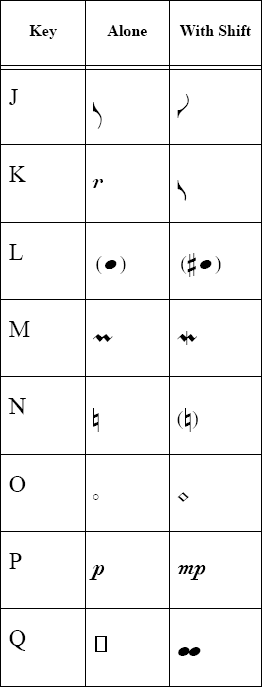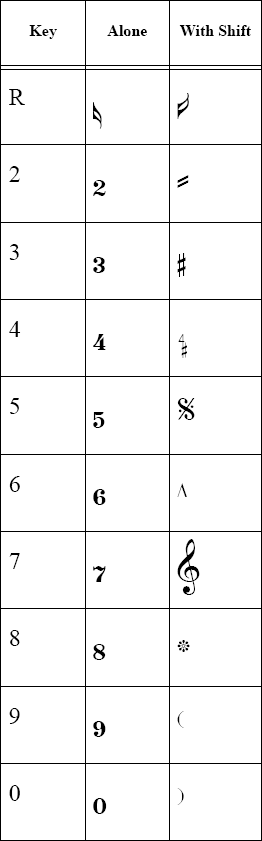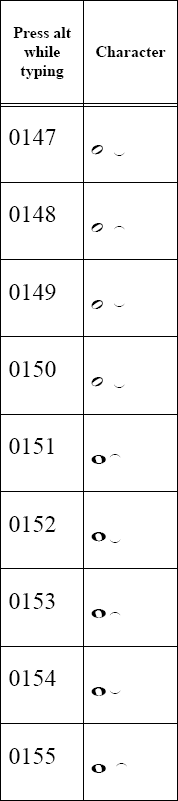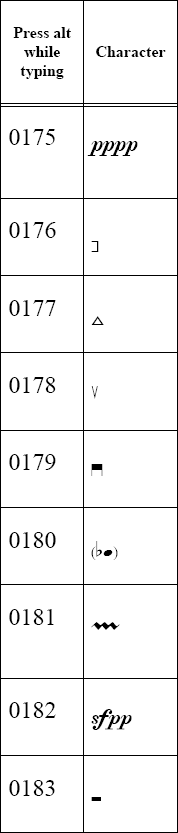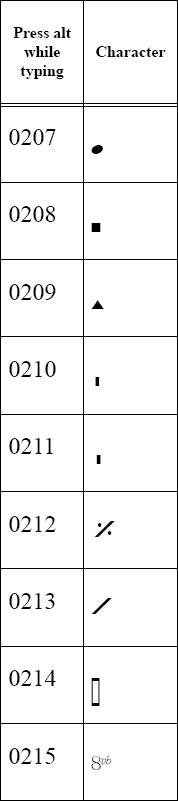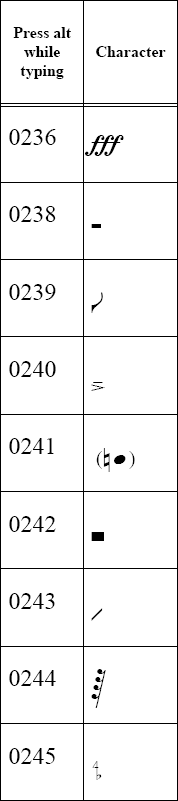
EngraverTextT is shown below. The Engraver Text fonts correspond to the standard fonts used for
the text portions of the font: T for Times, H for Helvetica and NCS for New Century Schoolbook.